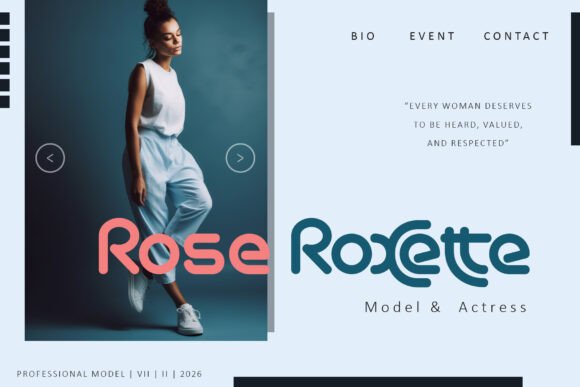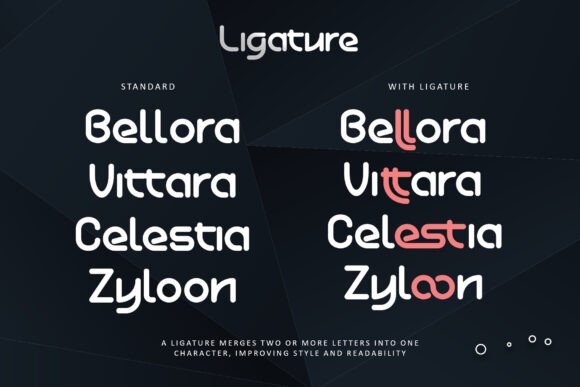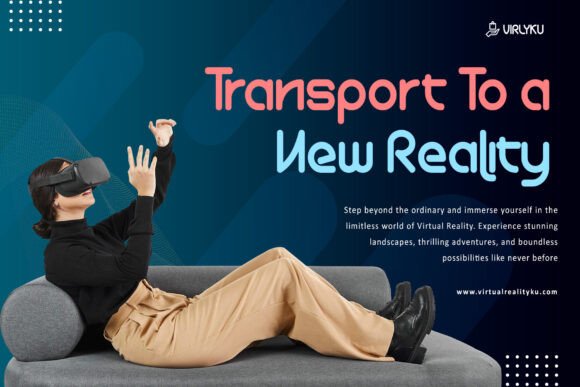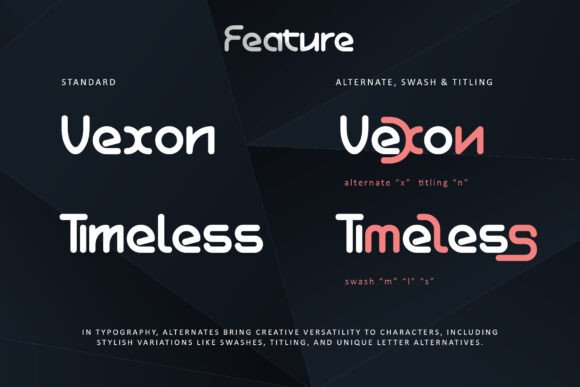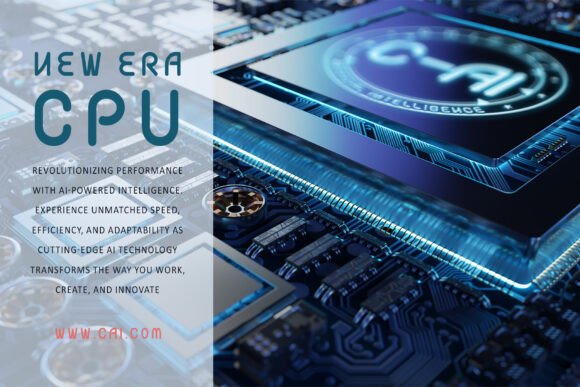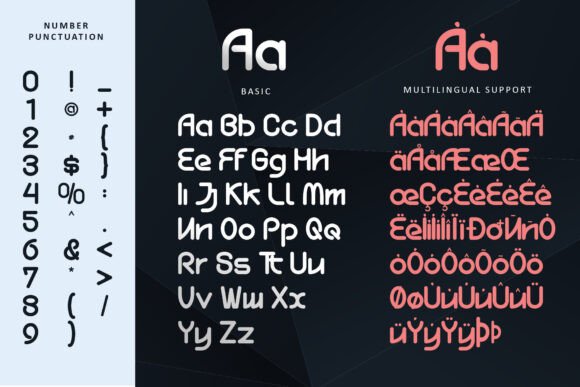
Unlocking the Power of Modern Design
Have you ever stared at a blank canvas, overwhelmed by the endless possibilities, yet yearning to create something truly remarkable? That’s exactly where the magic happens – in the moment when inspiration strikes, and your creative vision begins to take shape. As designers, we know that the right font can make all the difference in elevating our work from good to great.
Enter Axaria Font, a sleek and sophisticated sans-serif font designed to meet the demands of modern innovation. With its clean lines and refined structure, Axaria delivers a perfect balance of elegance and strength, making it ideal for branding, editorial layouts, web design, and high-impact visuals. Whether you’re crafting a striking logo or a compelling headline, Axaria’s timeless versatility ensures your message stands out with confidence.
Axaria Font Key Features
- Font Family: Axaria Font is a sans-serif font family with multiple weights and styles.
- Character Set: Axaria Font supports a wide range of languages, including Latin, Cyrillic, and Greek alphabets.
- Unique Characteristics: Axaria Font features a clean and modern design, with subtle rounded edges and a neutral color palette, making it suitable for a wide range of applications, including corporate branding, digital signage, and editorial design.
Designer Review: Axaria Font
I recently had the chance to work with the Axaria Font, and I must say it’s a beautiful addition to any design project. ✨ The clean, elegant lines and the subtle flair at the ends of the letters make it perfect for creating a sophisticated and modern look.
- Legibility: Axaria is extremely easy to read, even at smaller font sizes.
- Consistency: The font’s design is consistent throughout, making it easy to use in both body text and headings.
- Flexibility: Axaria works well in both print and digital formats.
However, there are a few limitations:
- Limited font sizes: Axaria doesn’t have as many font sizes available as some other fonts, which can be a limitation for designers who need a lot of options.
- Not ideal for bold or dramatic text: Axaria is a relatively subtle font, which can make it less effective for use in bold or dramatic text.
- ⚠️ Limited language support: Axaria doesn’t support as many languages as some other fonts, which can be a problem for designers who need to create content in multiple languages.
Overall, I think Axaria is a great choice for designers who want to create a clean, modern look. While it may have some limitations, its beauty and elegance make it a great addition to any design project.
Tips for Getting the Most Out of Axaria Font
For optimal results, use Axaria Font in conjunction with a clean and simple design. Experiment with different font sizes, colors, and styles to create visual interest. Axaria Font is versatile and works well for a variety of projects, from business presentations to creative designs.
Axaria Font is ideal for:
- Business presentations and reports
- Creative designs and typography projects
- Headings and titles in documents and presentations
Alternatives to Axaria Font
Ostrich Sans is a sans-serif font with a modern and clean design. It is suitable for use in digital products, websites, and mobile applications. It is similar to Axaria Font in terms of its clean and minimalist aesthetic, but it has a more geometric feel and a wider range of weights.
Montserrat is a sans-serif font with a urban and industrial feel. It is designed for use in digital products, websites, and mobile applications. Compared to Axaria Font, Montserrat has a more geometric and modern feel, with a stronger emphasis on horizontal lines and a more condensed letterform.
Q: What is the recommended font size and line height for Axaria Font?
The recommended font size for Axaria Font is between 12pt and 24pt, depending on the intended use and viewing distance. The recommended line height is at least 120-150% of the font size. This will ensure optimal readability and legibility of the font.